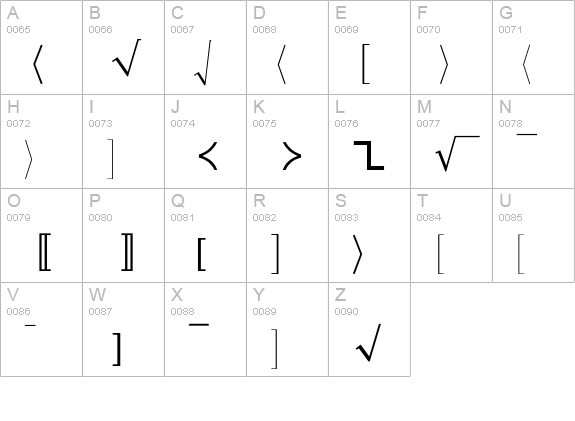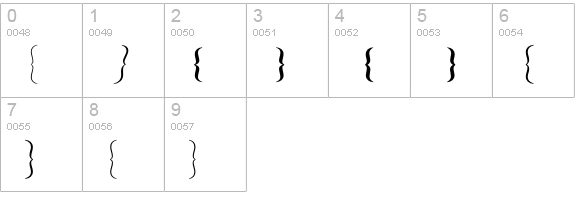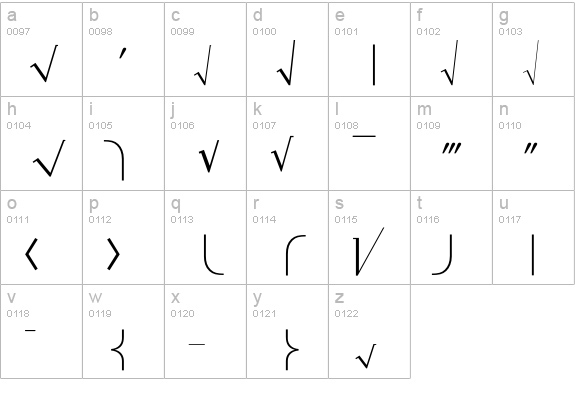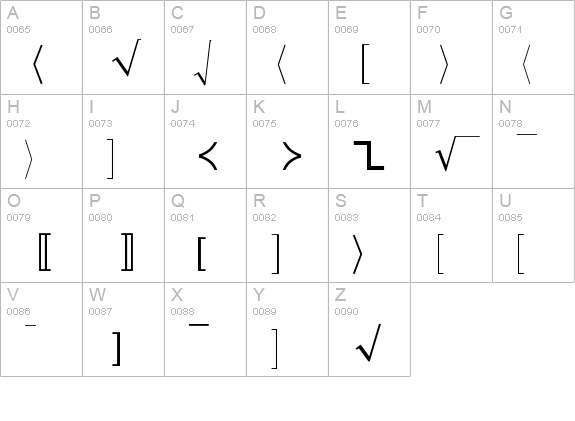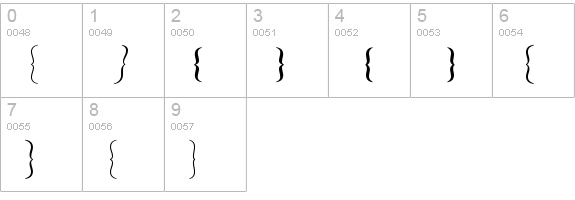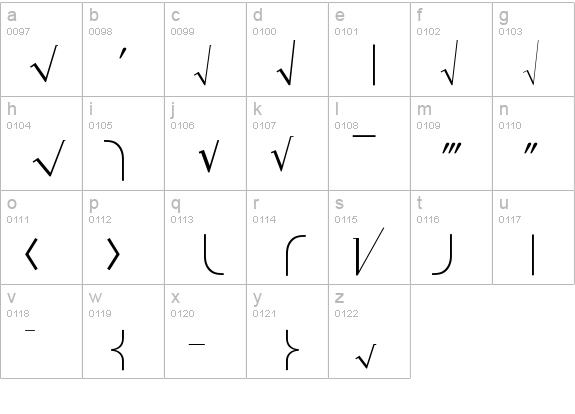
MathTechnicalP05 Font Details
MathTechnicalP05 is a versatile and comprehensive font designed specifically for mathematical and technical purposes. With its clean and crisp lines, this font is perfect for creating equations, formulas, and scientific notations with utmost clarity and precision. Featuring a wide range of mathematical symbols, operators, and variables, MathTechnicalP05 is an essential tool for mathematicians, scientists, engineers, and anyone working in the field of technical writing. From algebraic equations to complex calculus expressions, this font ensures that every mathematical element is accurately represented, making it an invaluable resource for educational materials, research papers, and technical publications. One of the most significant advantages of MathTechnicalP05 is that it is freely available to download at FontsMarket.com. This means that anyone can access and use this remarkable font without any cost or restrictions. Whether you are a student, teacher, or professional, you can benefit from this font's exceptional clarity and legibility, without having to worry about budget constraints. In addition to its functionality, MathTechnicalP05 also boasts a sleek and modern design. Its carefully crafted letterforms and balanced spacing make it visually appealing, ensuring that your mathematical and technical content looks polished and professional. The font's consistent stroke width and geometric proportions allow for seamless integration with other fonts, making it ideal for creating cohesive and visually engaging documents. Overall, MathTechnicalP05 is an indispensable tool for anyone who deals with mathematical and technical writing. Its extensive range of symbols, impeccable clarity, and sleek design make it a top choice among professionals in various fields. Best of all, its availability as a free download on FontsMarket.com ensures that quality mathematical and technical typography is accessible to all.